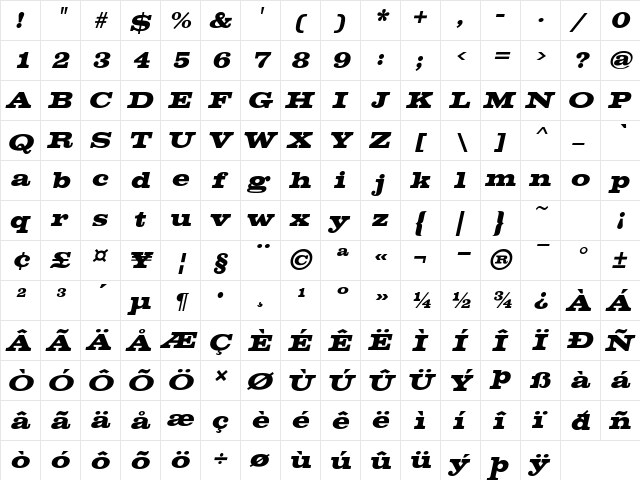
Chestnut Oblique
Design Context for Chestnut Typeface
Chestnut offers clean, dependable letterforms without strong stylistic allegiance, making it a practical choice for designers who need flexibility. Its italic angle brings a sense of urgency and motion to the letterforms.
Pro Tip: Try Chestnut for annotation and caption copy alongside an upright companion — the contrast in angle creates a dynamic but ordered typographic system.